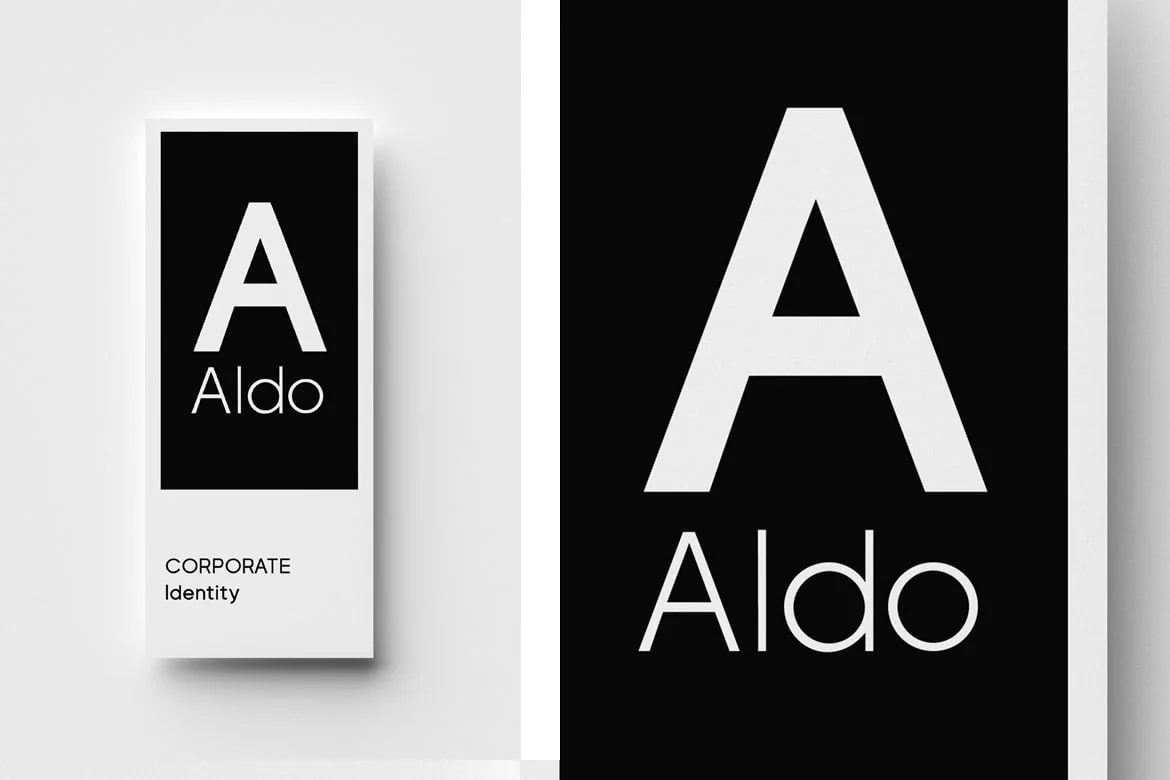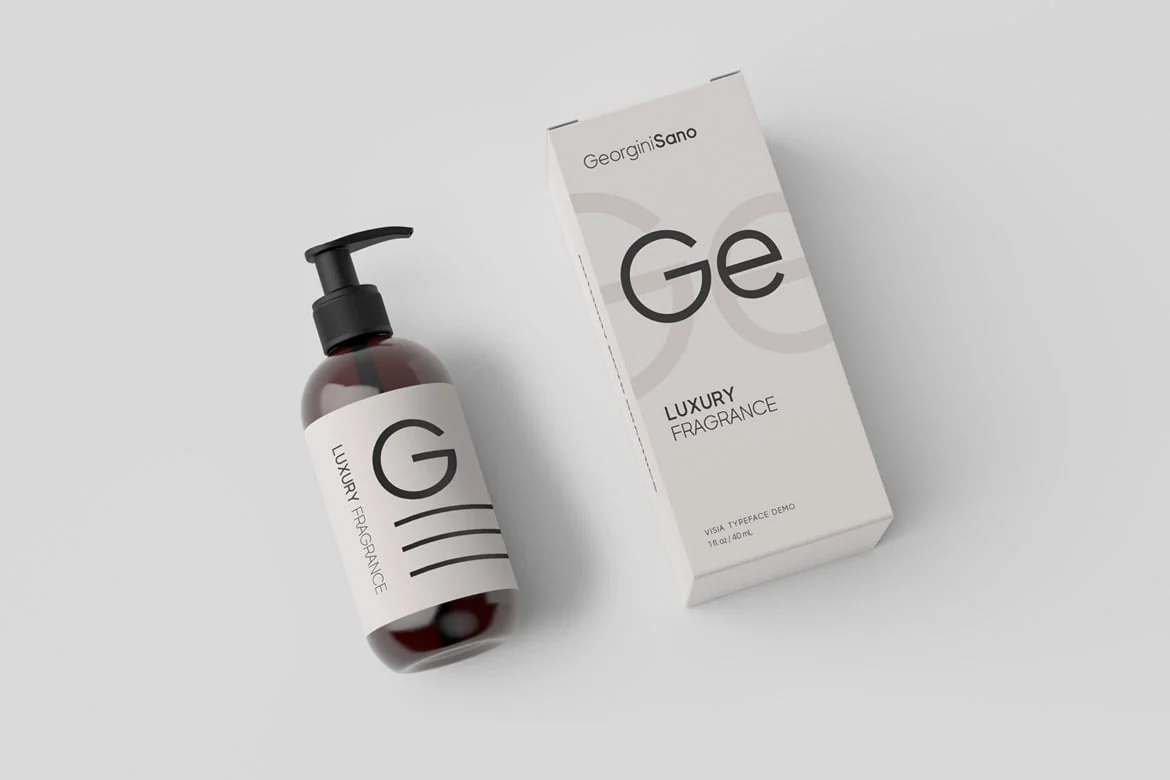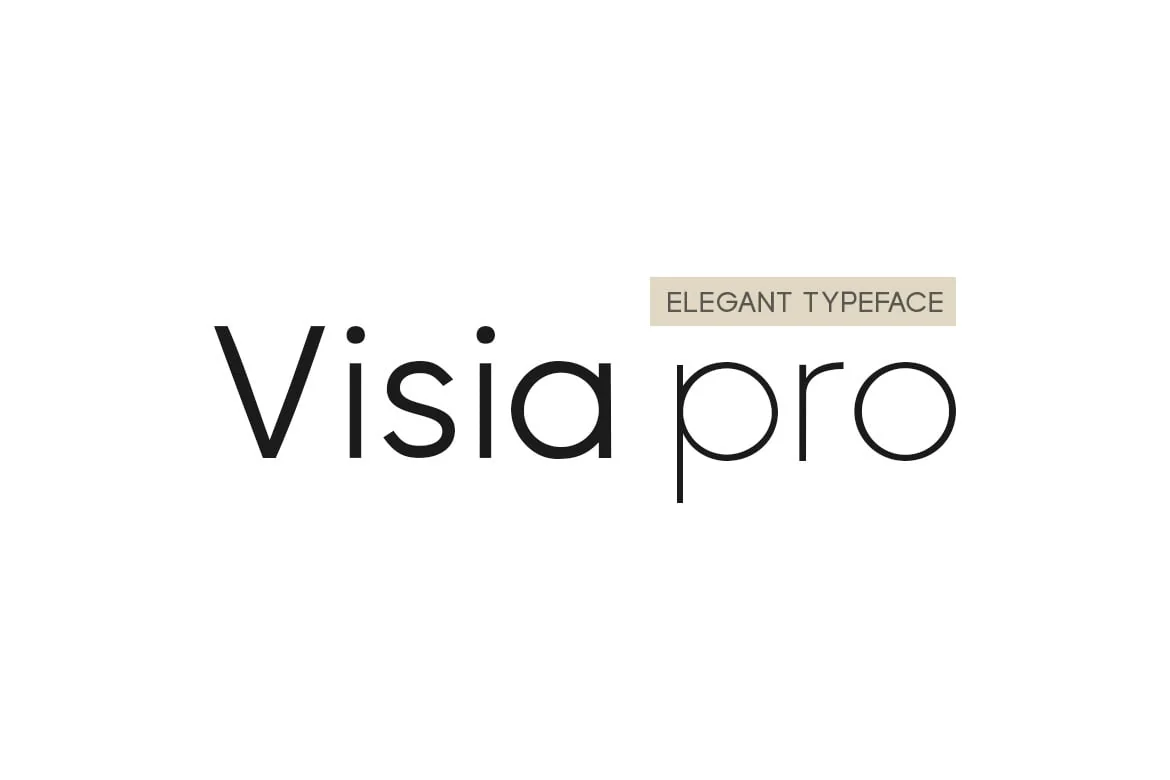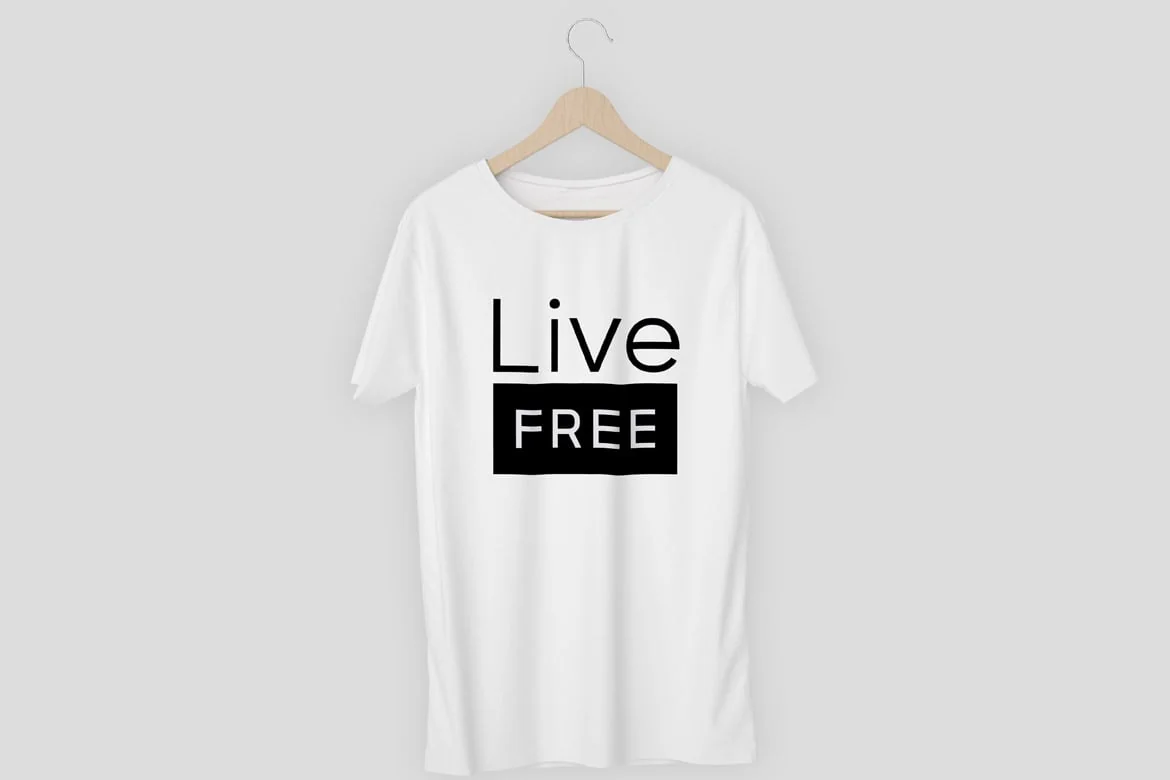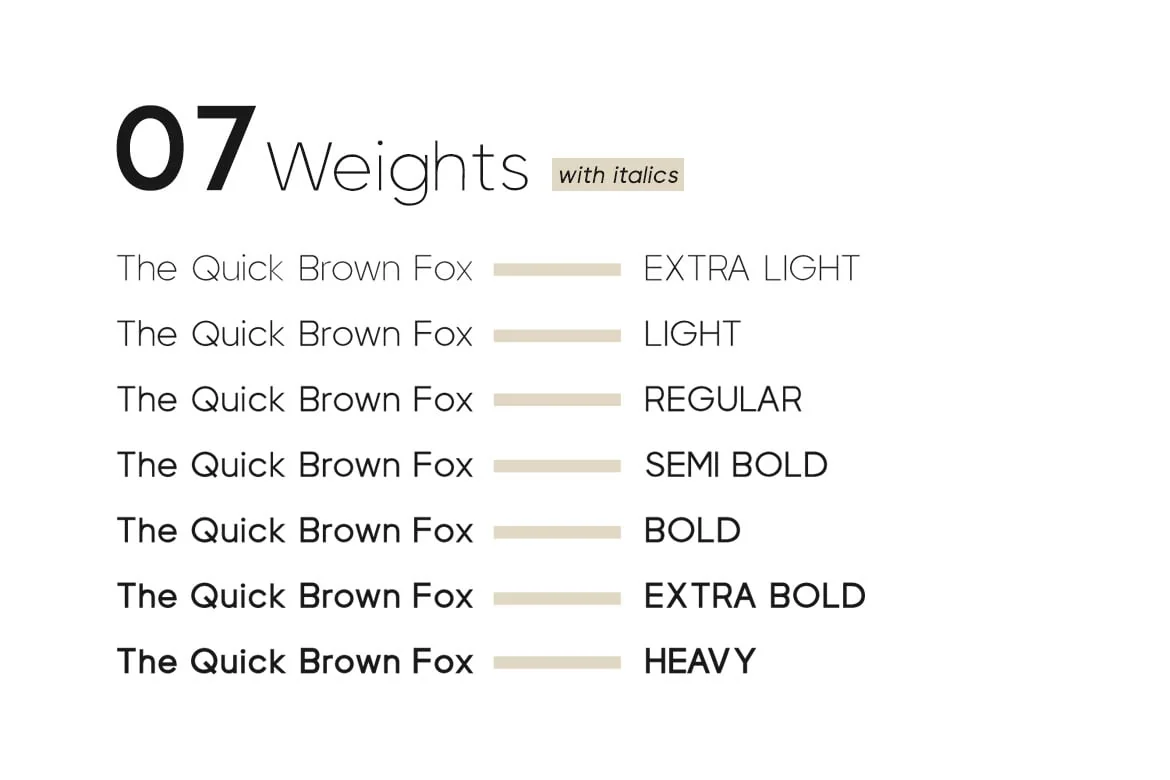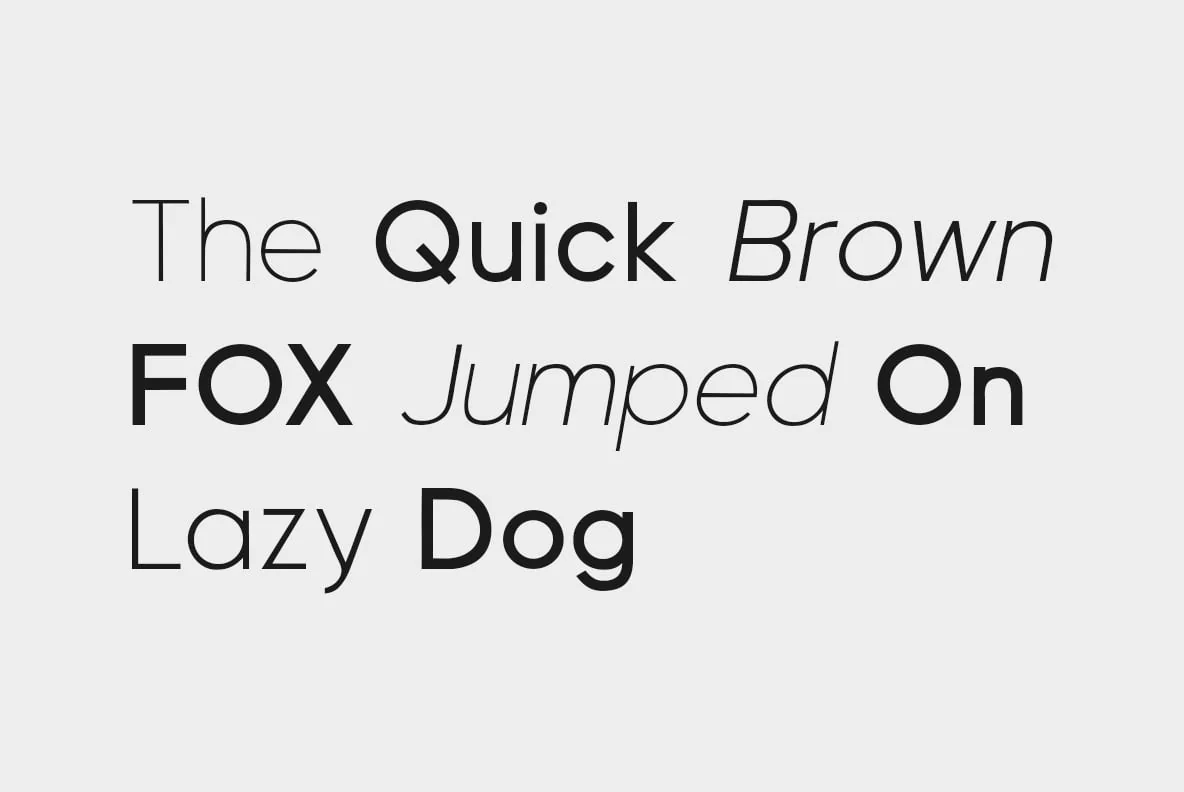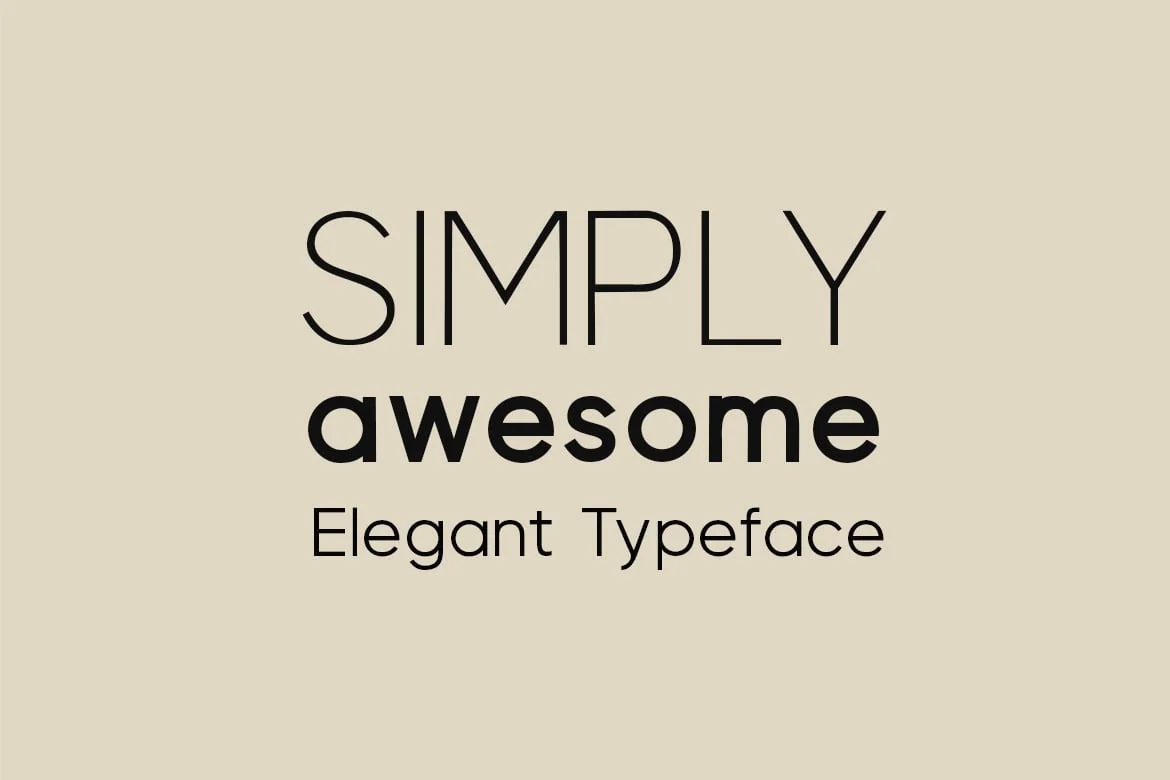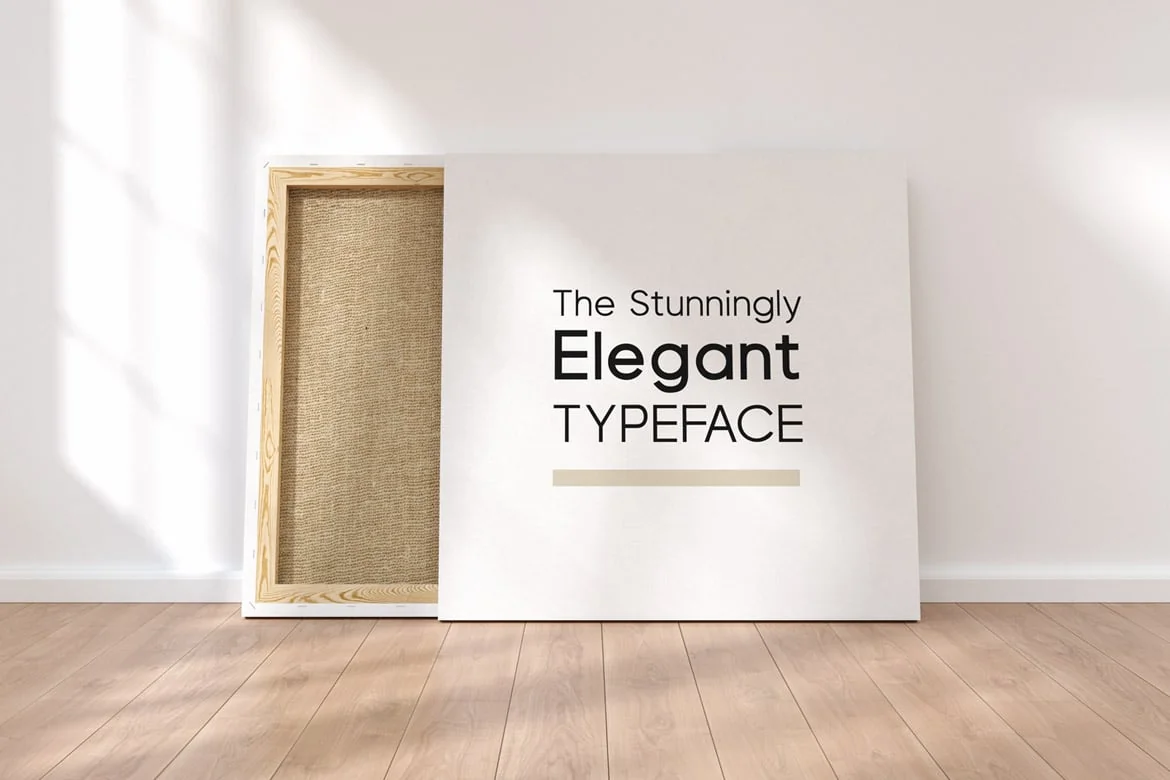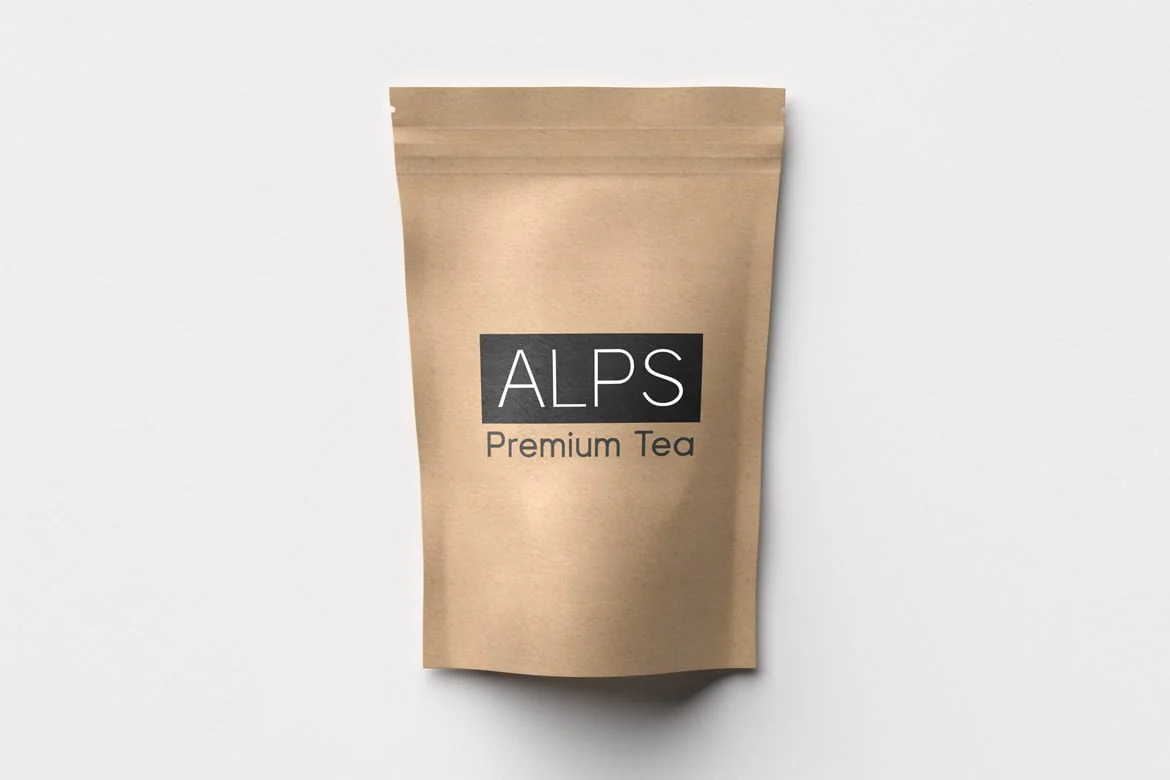
VISIA Pro – Elegant Geometric Typeface + Web Fonts
VISIA Pro – Our flagship Geometric Sans-Serif typeface, a perfect blend of elegant, minimal and premium design aesthetics at it’s level best. A perfect typeface for logotypes, headlines, branding, marketing graphics, corporate identities, all web & print purposes.
VISIA comes with 7 weights (as well as italics version of each weight): Extra Light / Regular / Semi Bold / Bold / Extra Bold / Heavy. The pack contains OTF, TTF and Web Fonts (all EOT, SVG, TTF, WOFF included).